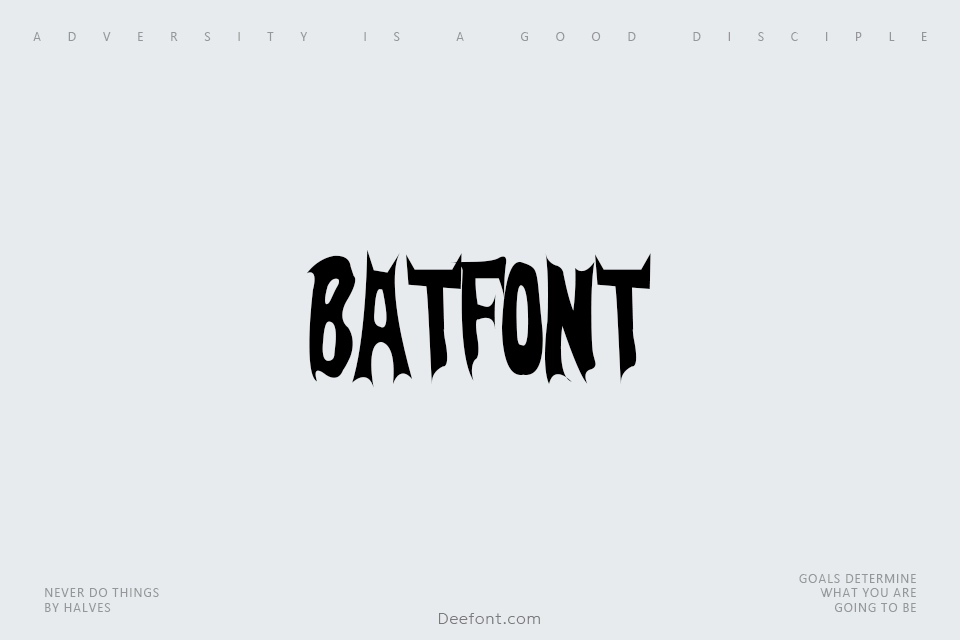
BatFont Font
The BatFont font brings cartoon flair and playful energy to your creative work. Inspired by comic book styles, this typeface features bold and decorative glyphs that make it ideal for posters, headlines, or any playful design requiring a fun touch. Its unique, stylized letterforms enhance visual appeal, especially in child-friendly and entertainment-focused projects. Easily recognizable, BatFont is suited for designers seeking a quirky, characterful display font that stands out in both digital and print media. With its free personal-use license, BatFont is a versatile option for a wide range of non-commercial projects.